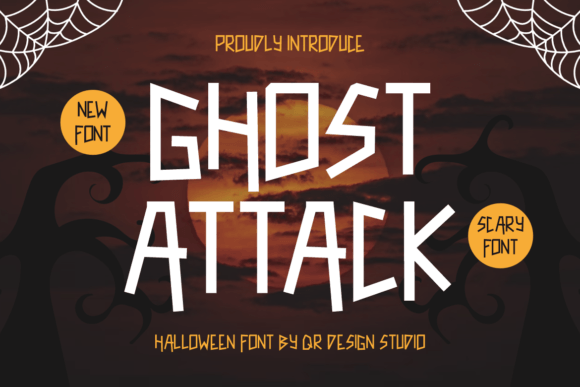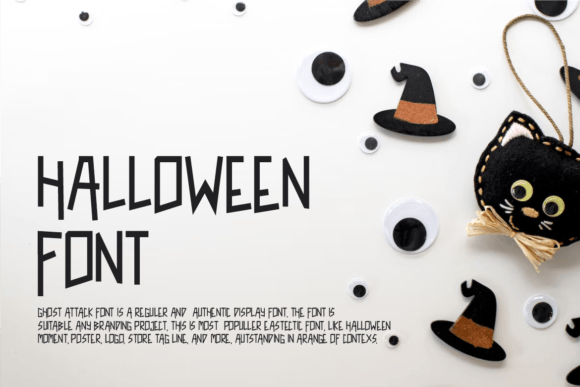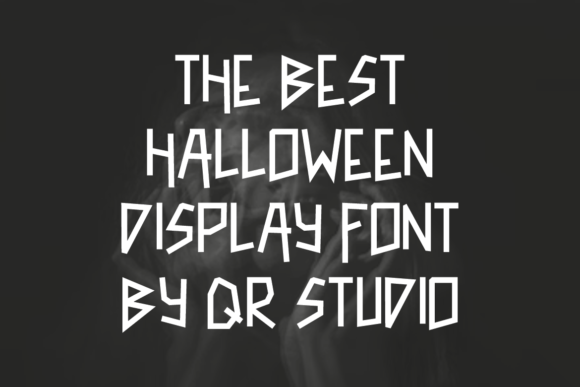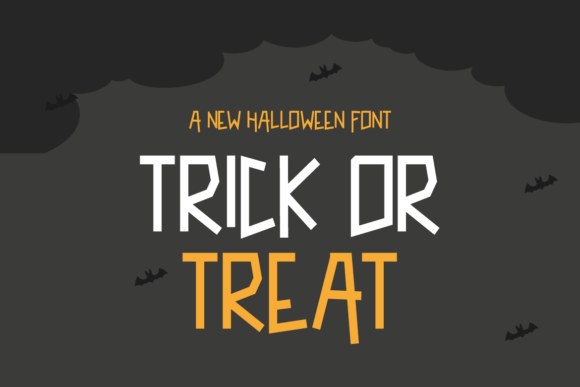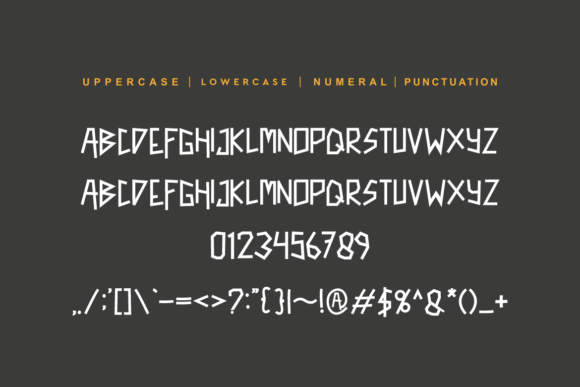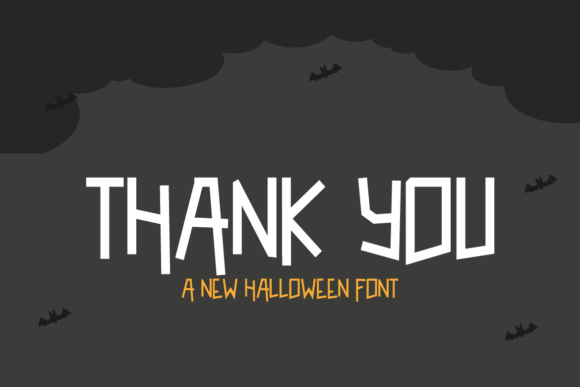
Have you ever been working on a design project and suddenly, the perfect font pops into your mind? It’s that moment when everything clicks, and you can envision the entire project coming together in a beautiful, cohesive way. For designers, finding the right font can make all the difference between a good design and an amazing one. And, trust us, we’ve all been there.
That’s why we’re excited to introduce you to the Ghost Attack Font, a quirky and sweet display font that’s perfect for adding a touch of whimsy to your designs. Whether you’re creating a cartoon, a children’s game, or just a simple graphic, this font is sure to bring a smile to your face and a dash of personality to your project. With its unique charm, the Ghost Attack Font is a valuable addition to any designer’s toolkit.
Key Features of “Ghost Attack Font”
- Unique Characteristics: The font features a unique, hand-drawn design with subtle ghostly effects, creating a haunting and atmospheric feel.
Ghost Attack Font Review
Ghost Attack Font is a unique and intriguing typeface that’s sure to grab attention. ✨ Its eerie, otherworldly feel is perfect for designers looking to create a sense of mystery and suspense in their projects. I appreciate how the font’s irregular shapes and lines evoke a sense of unease, making it ideal for horror-themed designs or titles that need to stand out.
One of the standout features of Ghost Attack Font is its high level of customization. ✨ The font includes a wide range of weights, from light to bold, allowing designers to easily adjust the font’s intensity to suit their needs. Additionally, the font’s kerning and spacing can be fine-tuned to create a more polished look.
- ⚠️ Limited character set: Ghost Attack Font includes only basic Latin characters, making it less suitable for designs that require a wide range of languages or characters.
- ⚠️ Not suitable for body text: Due to its unconventional design, Ghost Attack Font is best used for titles and headings rather than large blocks of body text.
Overall, I’m impressed with Ghost Attack Font’s unique aesthetic and high level of customization. While it may have some limitations, it’s an excellent choice for designers looking to create eye-catching titles and headings that leave a lasting impression.
Tips for Getting the Most Out of Ghost Attack Font
Ghost Attack Font is a versatile font that can be used for a variety of designs. To get the most out of it, try the following:
- Use Ghost Attack Font for titles and headings to add a touch of edginess to your design.